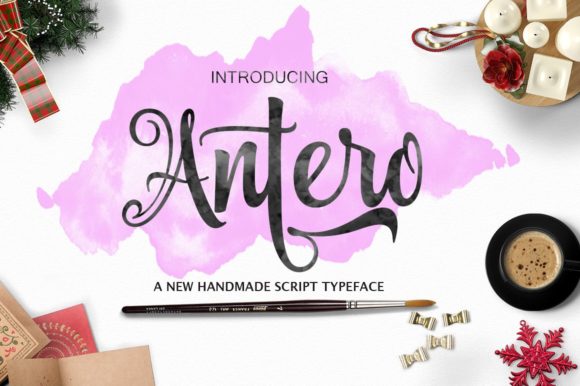
Antero Font
Immerse yourself in the exquisite world of Antero, a captivating script font family that exudes timeless elegance and natural charm. Crafted by skilled artisans, Antero boasts an alluring personality that will breathe life into your creative projects.
Embrace the beauty of handwritten artistry with Antero. Its graceful strokes and fluid curves evoke a sense of authenticity, adding a touch of sophistication to your designs. Whether you're a seasoned designer or a creative enthusiast seeking to make a statement, Antero is your perfect companion.
Unleash your creativity with Antero's versatile nature. Its adaptability shines across a wide spectrum of applications, from elegant wedding invitations and heartfelt love letters to striking logos and captivating social media posts. Let Antero be your canvas, transforming your words into breathtaking works of art.
Step into a realm where elegance meets functionality. Antero's carefully crafted characters dance harmoniously, creating a visual symphony that captivates and engages. Experience the joy of effortless readability, as Antero's meticulously designed letterforms ensure clarity and impact in every context.
Indulge in a font that speaks to your soul. Antero's enchanting aura is a testament to the power of timeless beauty. Let your designs radiate with an air of sophistication, a touch of whimsy, and a dash of undeniable charm. Antero is more than just a font; it's an expression of your unique style and personality.